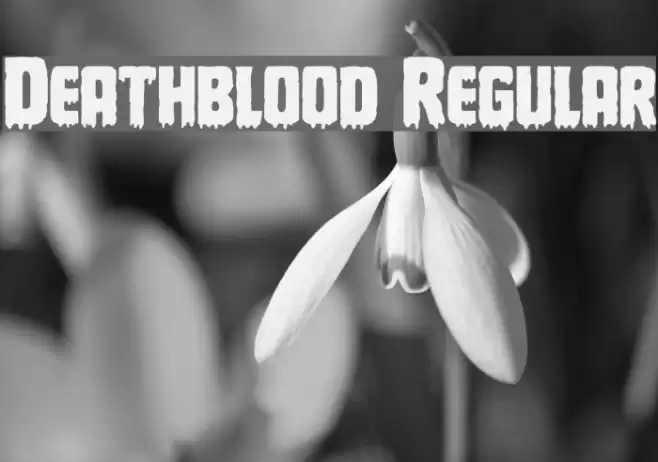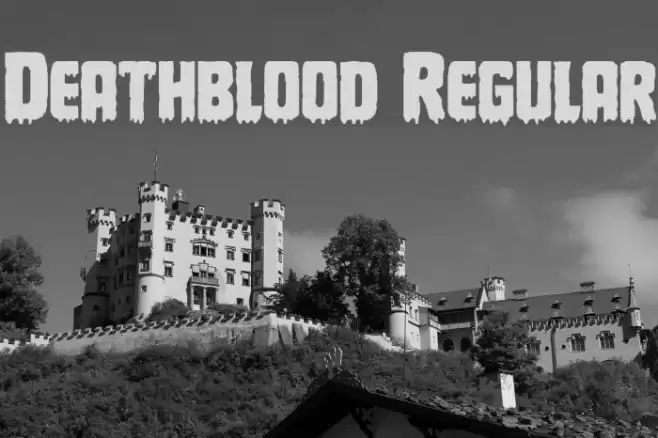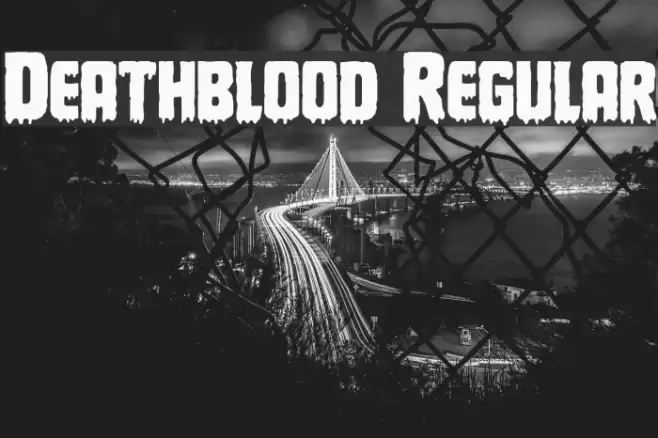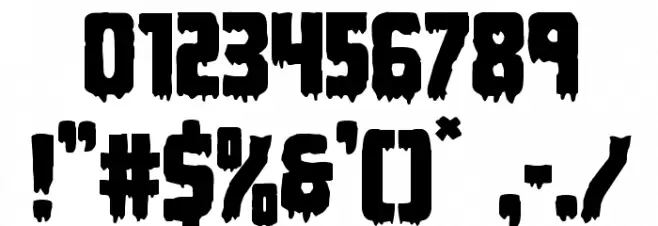
Deathblood Regular Font
Deathblood Regular Description
This font features a bold and dramatic style with a dripping effect, reminiscent of horror or Halloween themes. The characters are thick and blocky, with irregular edges that give the appearance of melting or bleeding. This unique design makes it stand out, perfect for creating an eerie or unsettling atmosphere. The uppercase and lowercase letters maintain a consistent style, while the numerals and special characters follow the same dripping motif. The overall look is striking and memorable, ideal for projects that require a strong visual impact.
A bold, dripping font with a horror-themed aesthetic from Uncategorized fonts.
- Proposed Projects: Ideal for Halloween posters, horror movie titles, themed event invitations, and spooky merchandise designs.